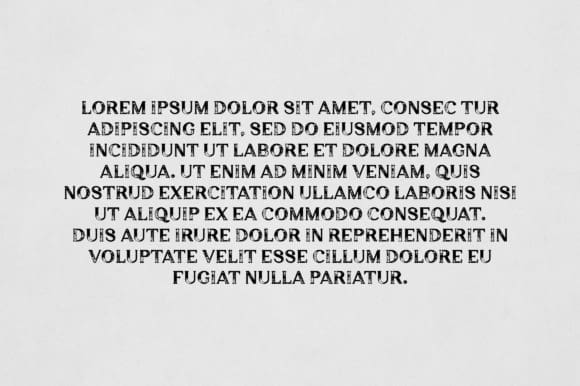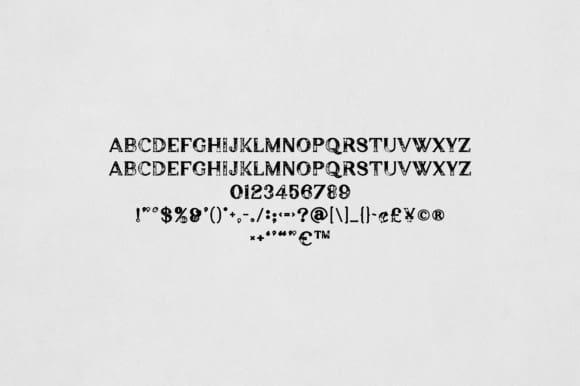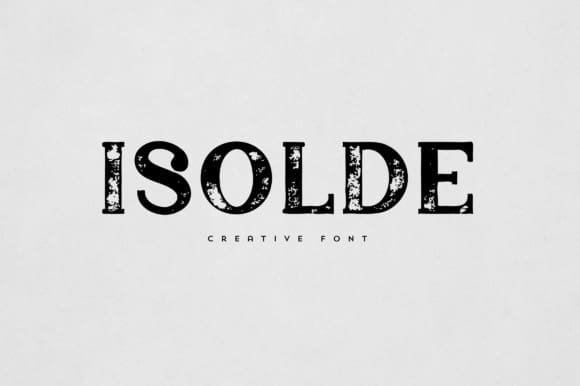
Isolde Display Font
Isolde Display Font is an elegant and versatile font that will make your typography truly unique! It will enchant every logo, branding, headline, or plain text!